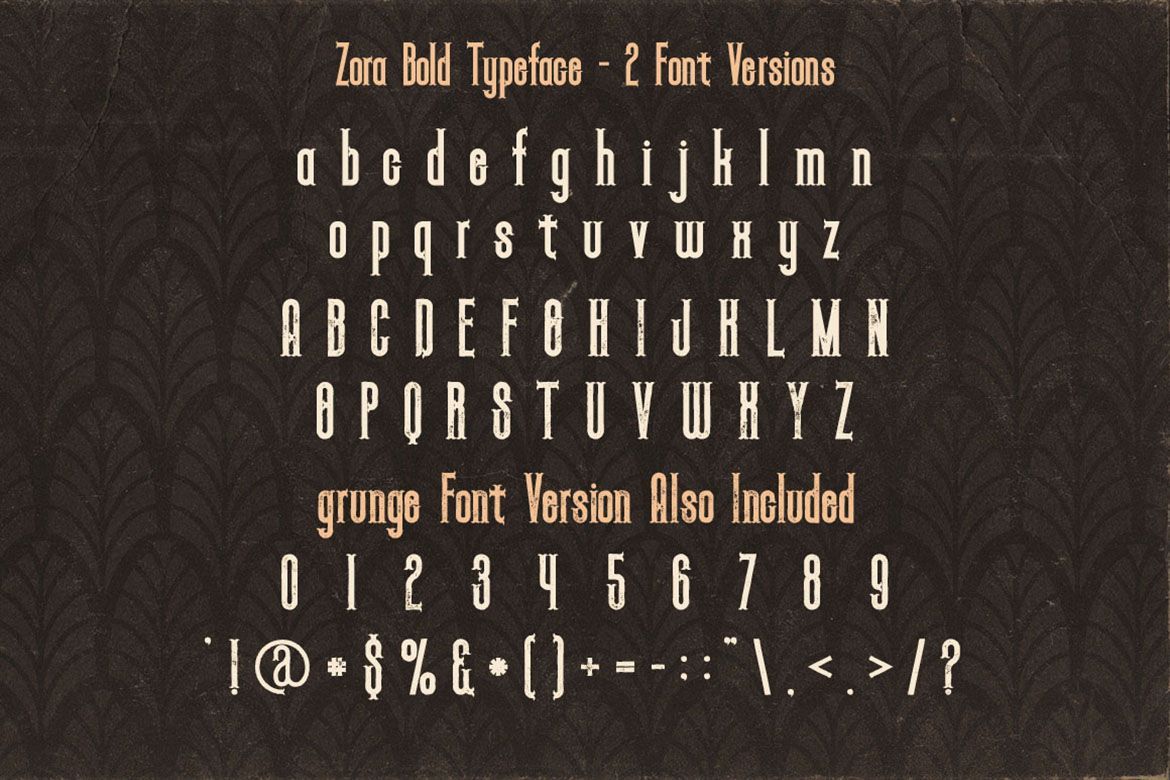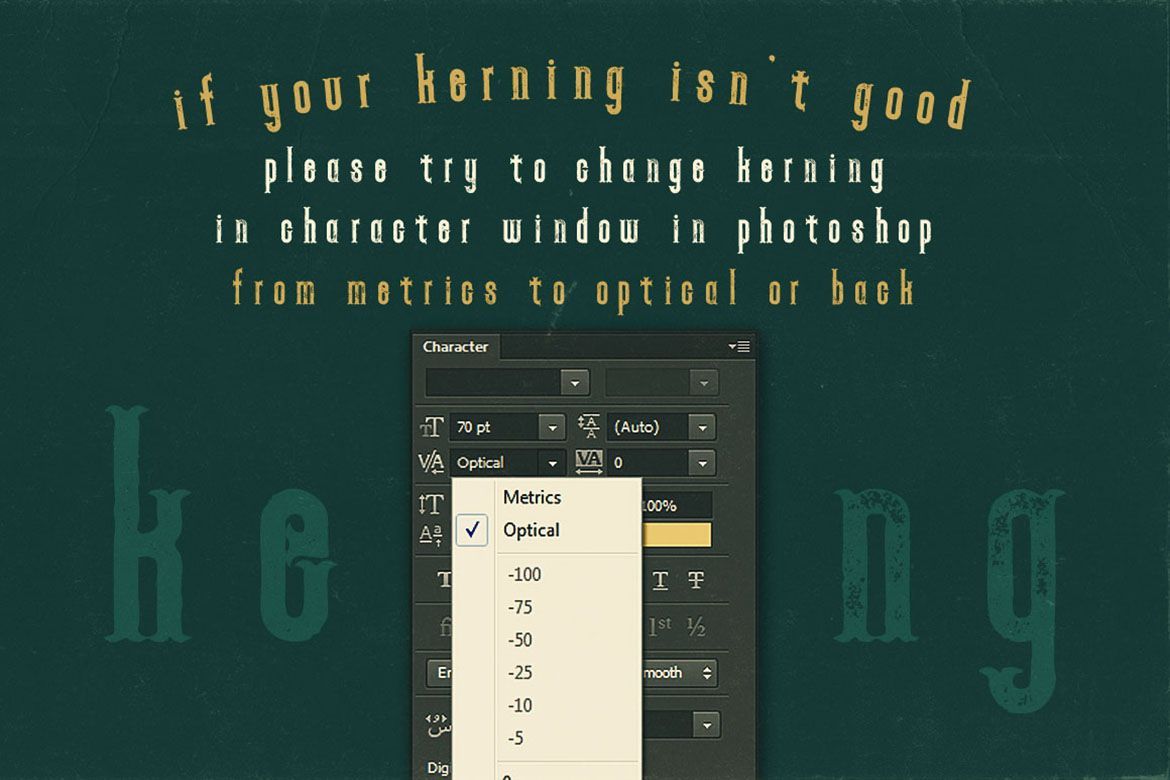
Vintage style display or serif font for your new projects. Great for your modern/retro headers or identity!
• english characters, numbers & special characters